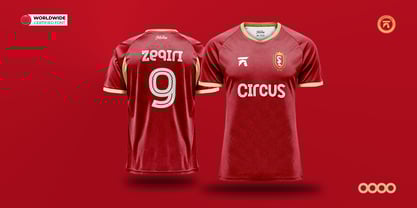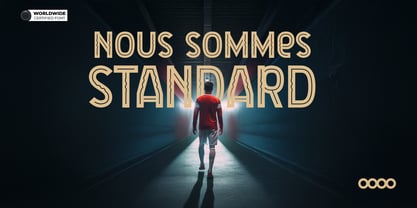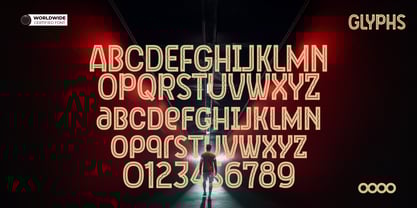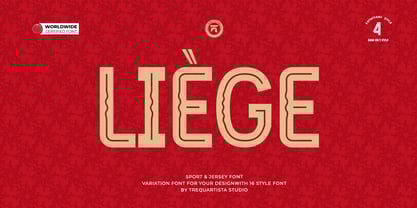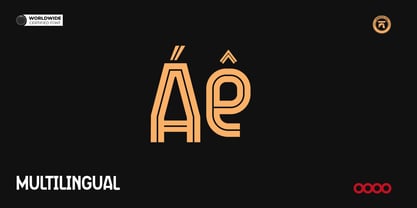
The Liege Font Family was designed by Muhammad Afif Ersya and published by Trequartista Studio. Liege contains 4 styles and family package options. More about this family
Liege a condensed sport .
Liege font features a distinctive wavy inline font inspired by the Meuse River, blending modern aesthetics with classic design to create a unique vision of football. This is more than just a font—it is a work of art that captures the emotions and unforgettable
moments in the history of the city of Liege.
Therefore excellent to use for headers, logos, captions and posters, especially for the sports branding industry, but just as good for any other projects.
Designers: Muhammad Afif Ersya
Foundry: Trequartista Studio